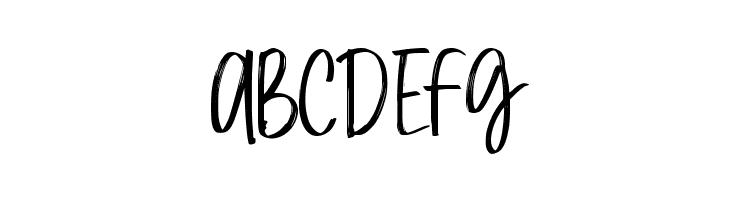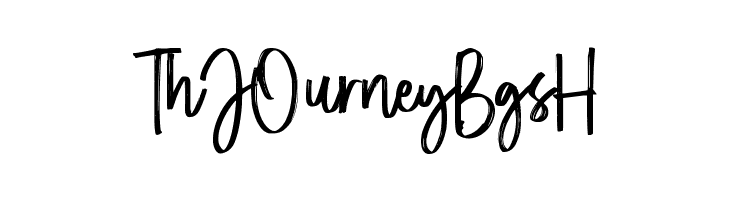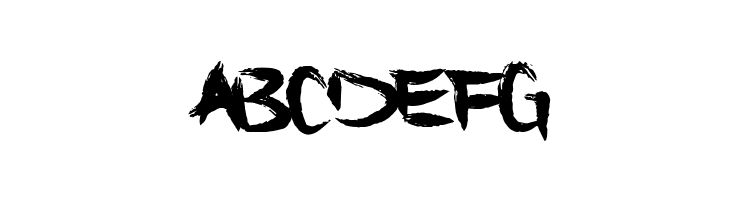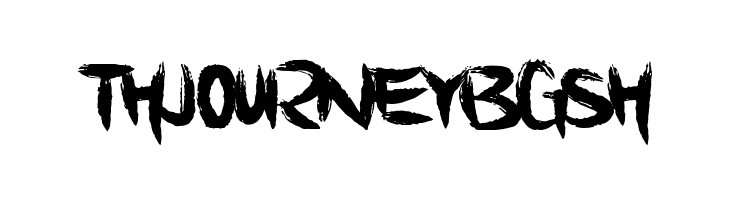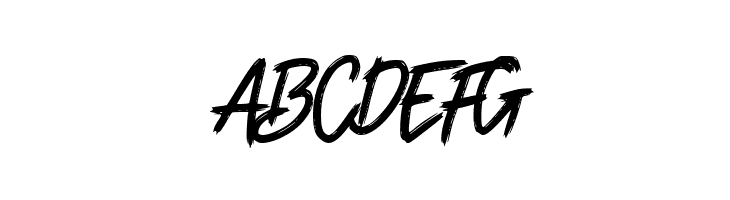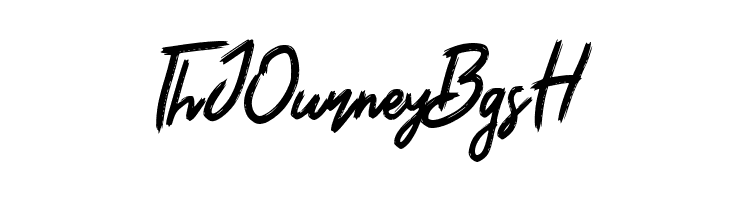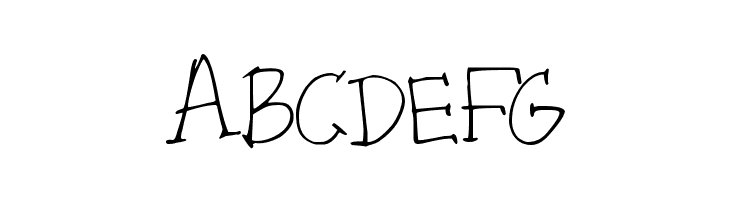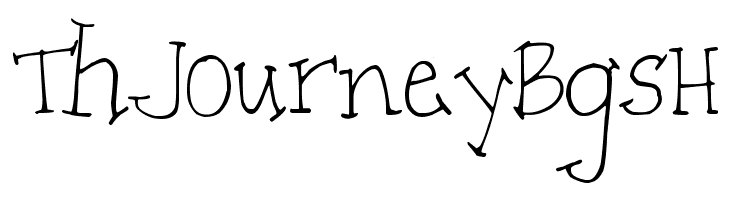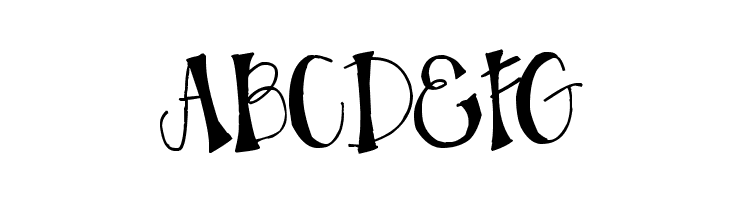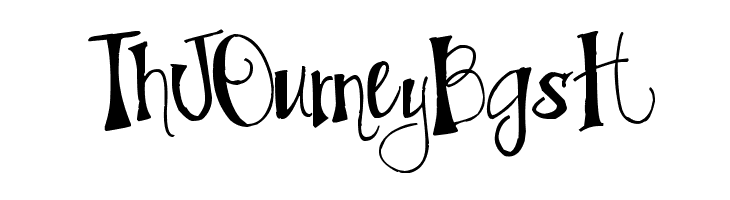
A bold, brushstroke-style font with dynamic, jagged characters.
A dynamic, artistic font blending handwritten and display styles.
A playful, handwritten font with irregular strokes and a whimsical style.
A bold, brush-style script font with dynamic, slanted characters.
A decorative font with Celtic knotwork and modern elements.
A decorative Celtic-inspired font with intricate, ornate designs.
A dynamic italic font with sharp angles and smooth curves, exuding elegance and motion.
A bold, gothic blackletter font with ornate detailing and sharp angles.
A whimsical, handwritten font with playful and dynamic strokes.
A playful, casual handwritten font with a lively and spontaneous style.